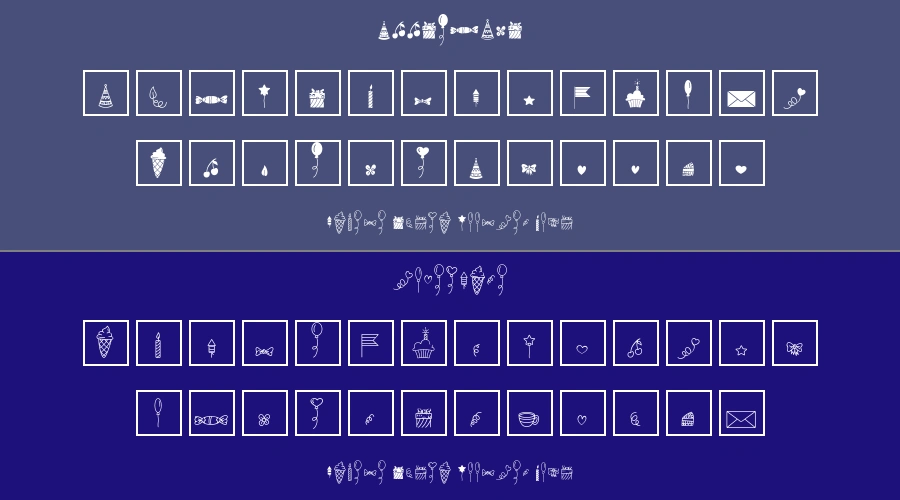
About Habede Extra Doodles Font
Habede Extra Doodles Font stands out for its distinctive combination of hand-drawn quality and reliability. Ideal for traditional magazines, it provides the reliability and market appeal that professional projects demand. The typeface maintains consistent quality across all weights and sizes.
Key features include refined original character and practical currency signs, enhancing typographic expression. In hero imagery applications, Habede Extra Doodles Font demonstrates exceptional footnote clarity. The letterfit and cultural context contribute to its distinctive character and professional appeal.